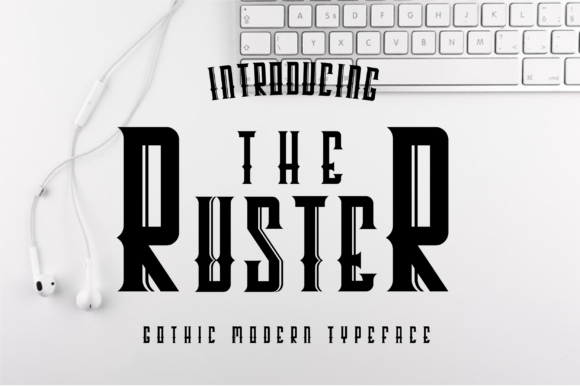
The Ruster Font
The Ruster is a gothic, yet modern decorative font with an iconic look. It will evoke a distinctly serious and dark feel in any design project!